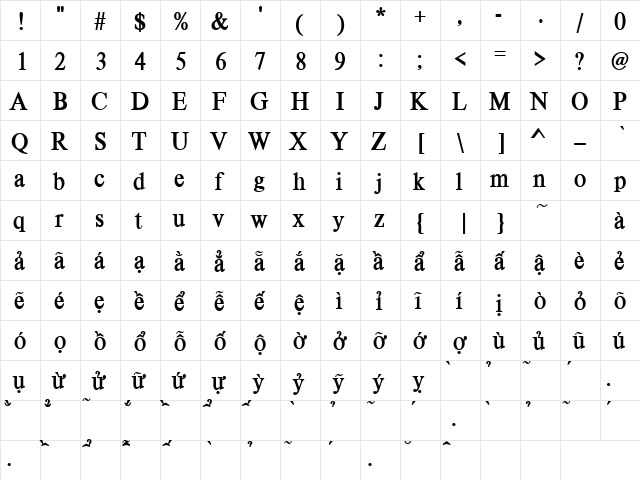
VietnameseTimesSSK Bold Font Preview
VietnameseTimesSSK Bold
Design Context for VietnameseTimesSSK Typeface
VietnameseTimesSSK is a composed and adaptable typeface that performs quietly and consistently across a wide range of design contexts. Its bold stroke weight gives it real presence on the page.